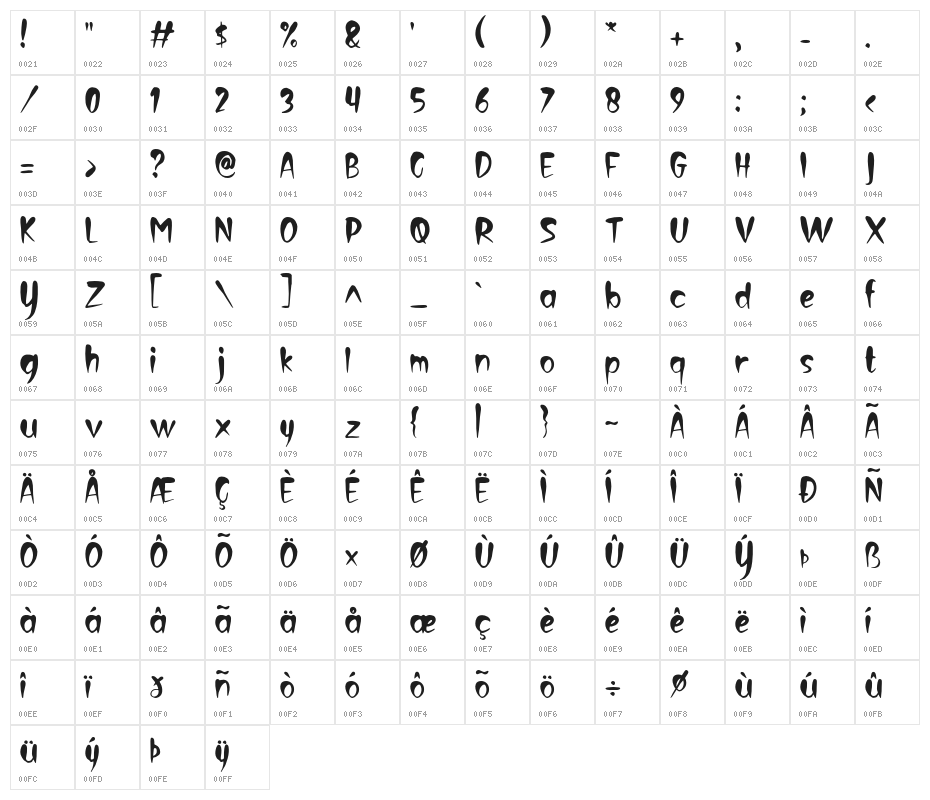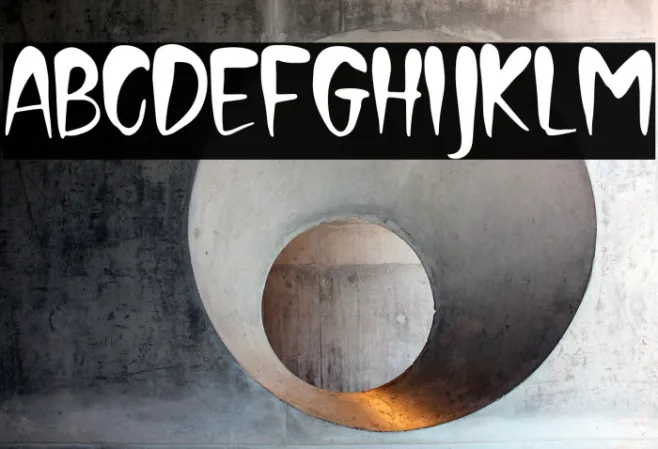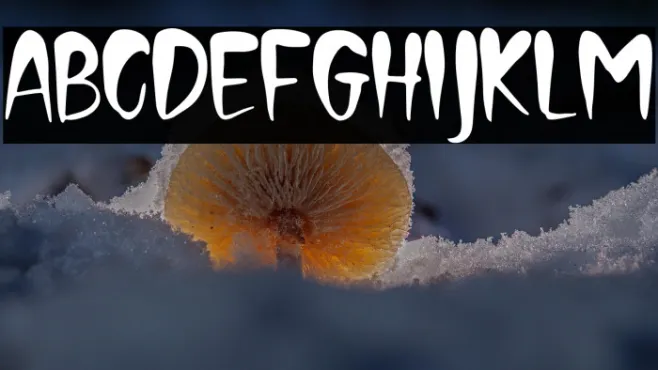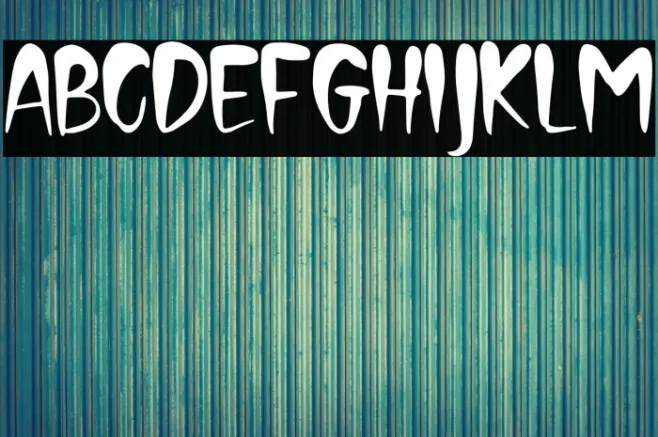
CreepyFace-Regular Font
CreepyFace-Regular Description
This font features a playful and slightly eerie style, characterized by its irregular and wavy letterforms. The strokes are bold and uneven, giving it a hand-drawn appearance that adds a sense of whimsy and unpredictability. The uppercase and lowercase letters maintain a consistent style, with exaggerated curves and varying stroke widths that create a dynamic and lively effect. The numbers and special characters follow the same design principles, ensuring a cohesive look across all elements. This font is perfect for projects that require a touch of the unconventional or a hint of the spooky, making it ideal for Halloween-themed designs or creative branding that seeks to stand out.
| Font Family | Creepy Face |